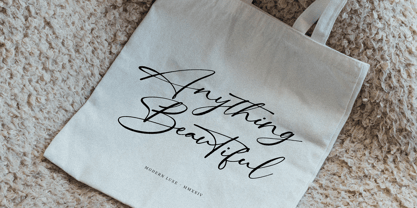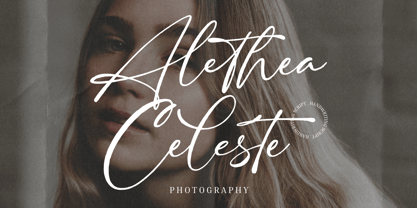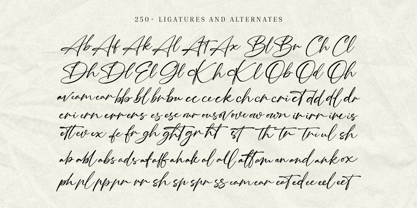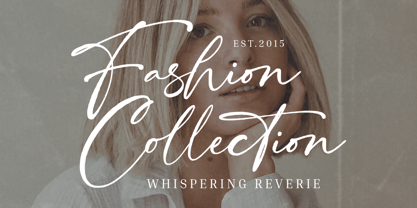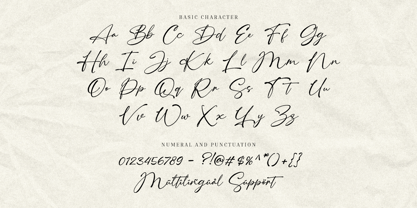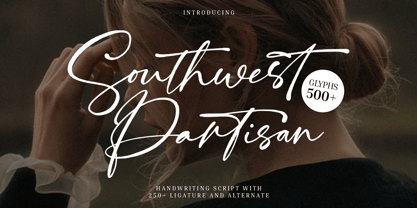
Southwest Partisan
The Southwest Partisan Font Family was designed by Virgiawan Listanto and published by Inviline. Southwest Partisan contains 1 styles. More about this family
Southwest Partisan is a luxurious handwriting script with over 500 glyphs and 250+ ligatures and alternates, carefully designed to bring a personal, elegant flair to your typography projects. With full A-Z characters, numerals, punctuation, multilingual support, and an abundance of stylish letter combinations, this font offers endless creative possibilities. Perfect for wedding designs, logos, photography branding, tote bags, elegant invitations, modern packaging, feminine quotes, and lifestyle branding, Southwest Partisan will elevate any project with a soft and sophisticated look.